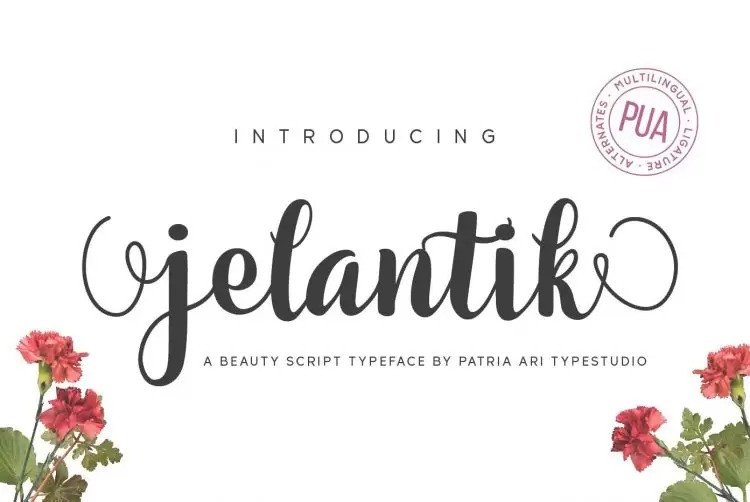
Jelantik Font
Jelantik Calligraphy Font with a natural feel, It has sweety swash that are perfect for any creative design. This handmade font will make your design has a beautiful natural touch for each details. Jelantik is perfect for branding projects, logo, wedding invitation, social media posts, advertisements, product packaging, product designs, label, photography, watermark, invitation, stationery and any projects that need handwriting taste.